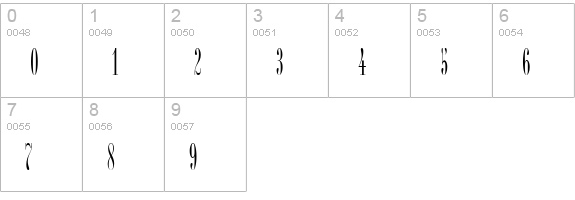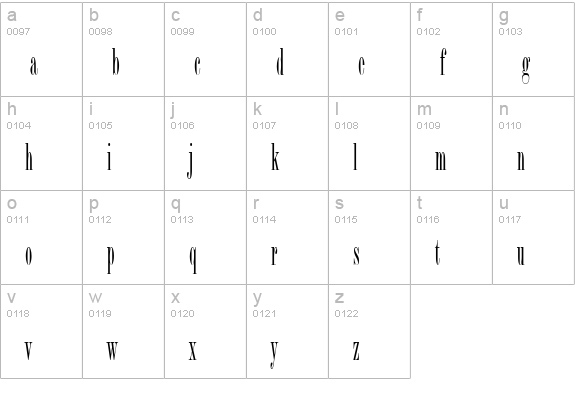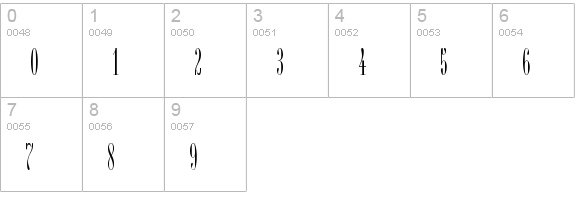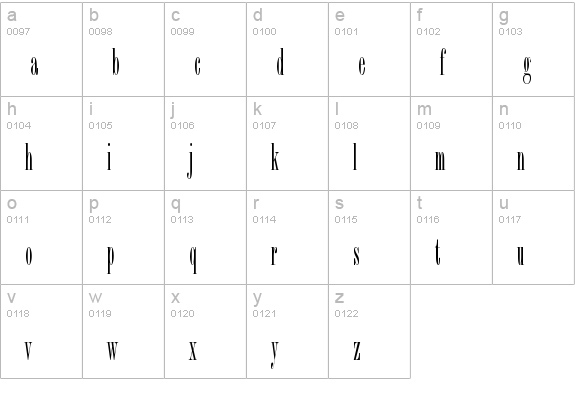
Bordeaux ICG is a versatile and elegant font that exudes sophistication and charm. Its sleek and modern design makes it perfect for a wide range of design projects, from branding to packaging to editorial design. This font features clean lines and distinctive details that set it apart from the rest. What makes Bordeaux ICG even more appealing is that it is available for free download at FontsMarket.com. This means that you can easily access this premium font without any cost, making it a valuable addition to your font library. Whether you're a professional designer or a hobbyist, Bordeaux ICG is sure to elevate your projects and make a lasting impression. Don't miss out on this opportunity to enhance your designs with this exquisite font.